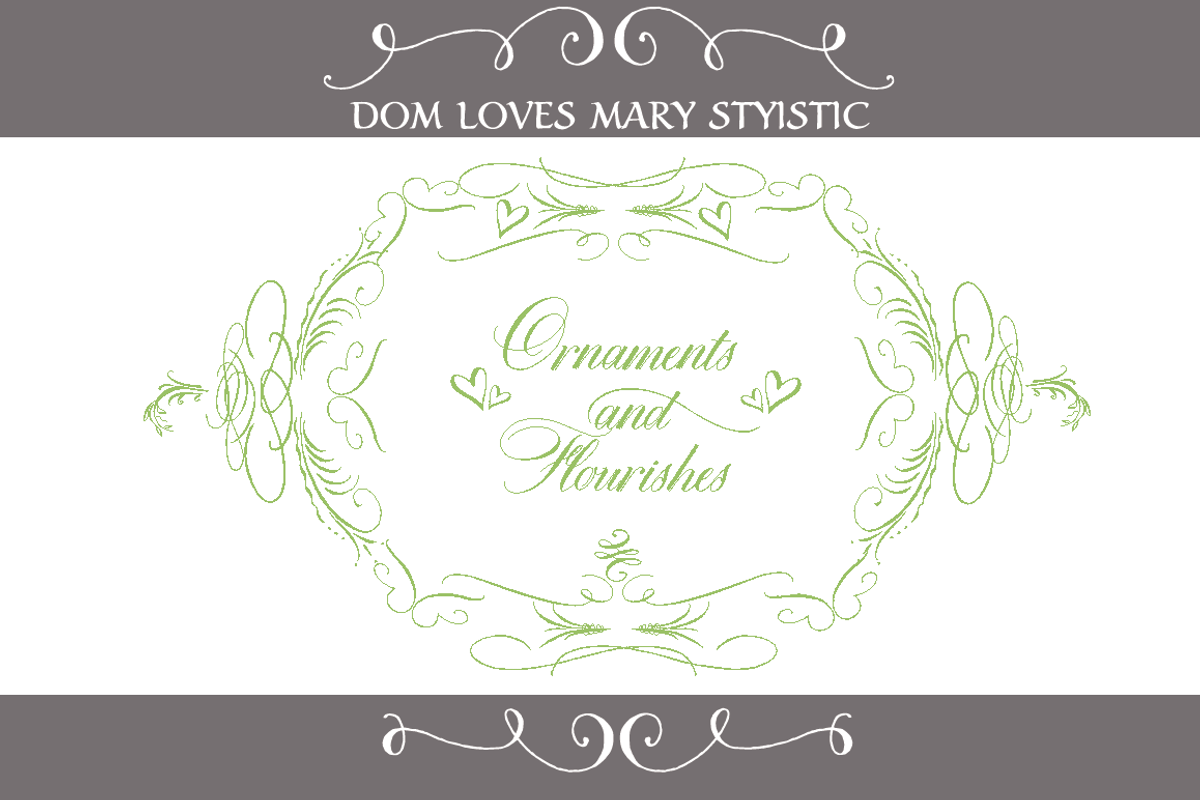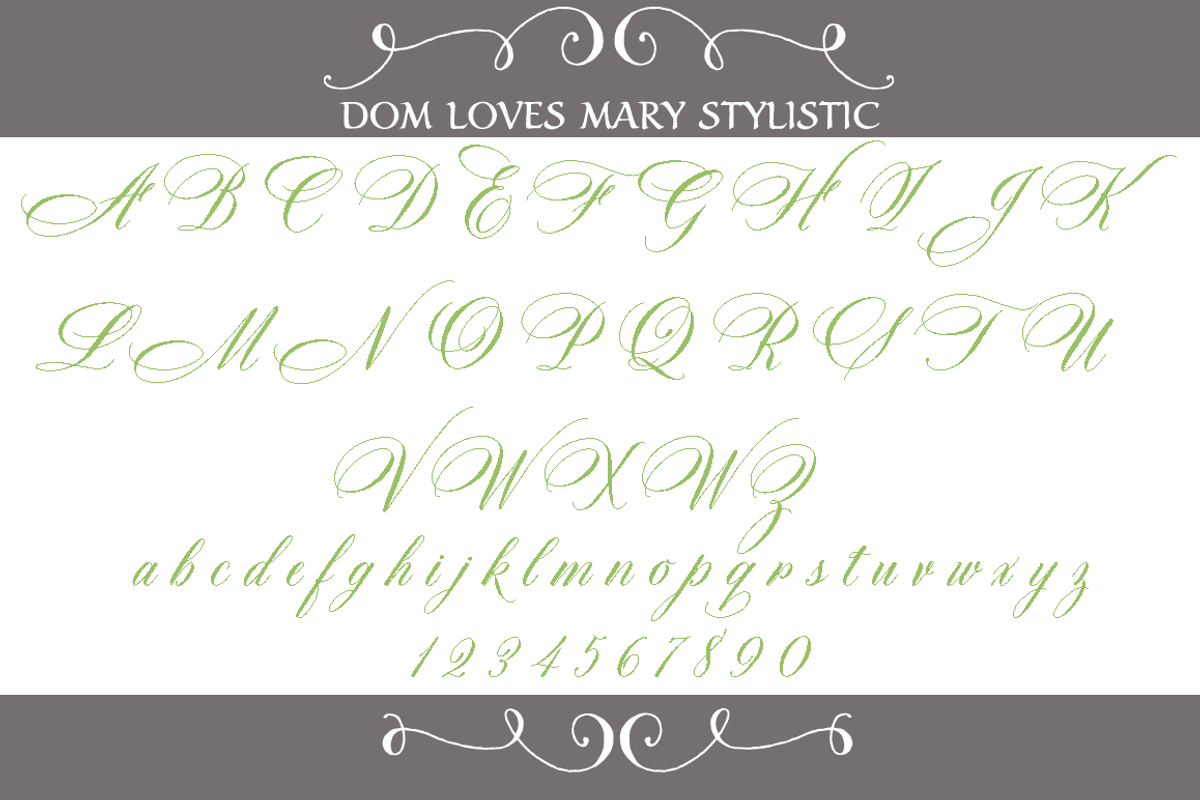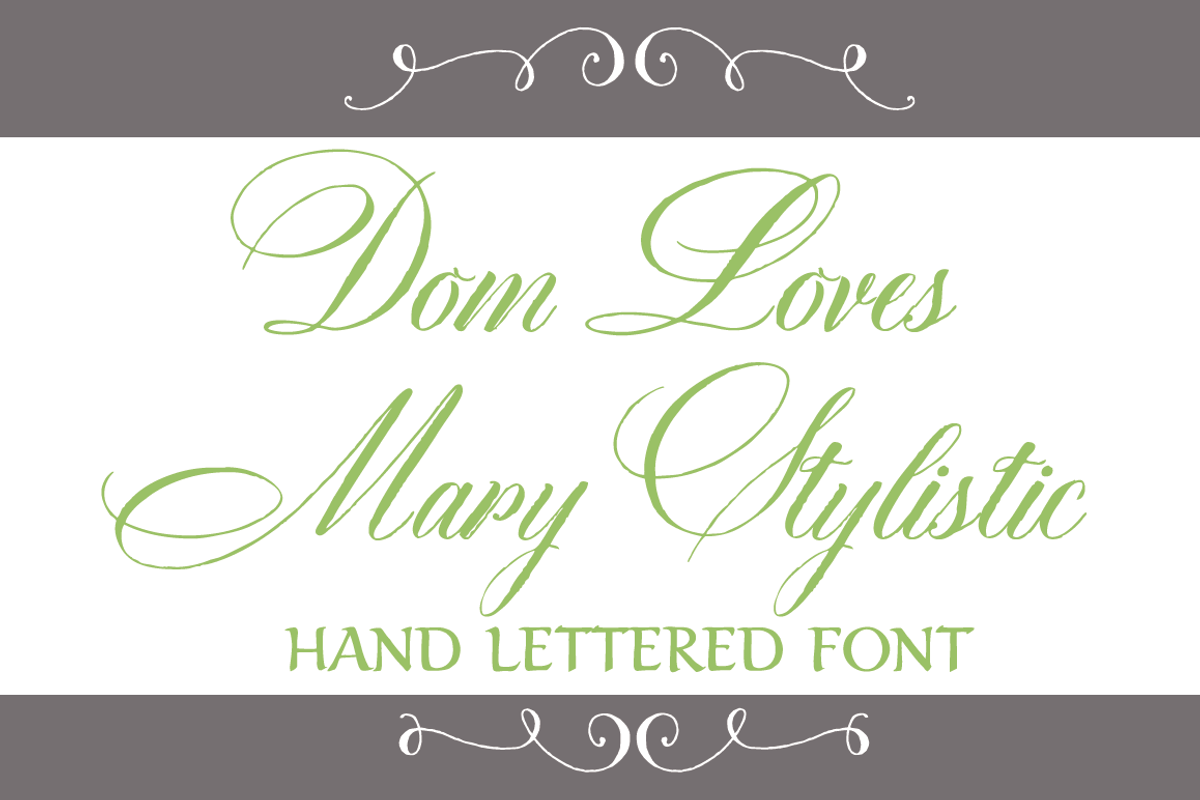
Sale-Dom Loves Mary Stylistic Font
Sale-Dom Loves Mary Stylistic Font by Debi Sementelli is a font selected for branding, posters, packaging, typography.
- The font also includes a set of flourishes and ornaments that are accessible in the glyph panel in OPEN TYPE CAPABLE programs like Illustrat
Sale-Dom Loves Mary Stylistic Font by Debi Sementelli fits naturally into Branding, posters, packaging, typography.